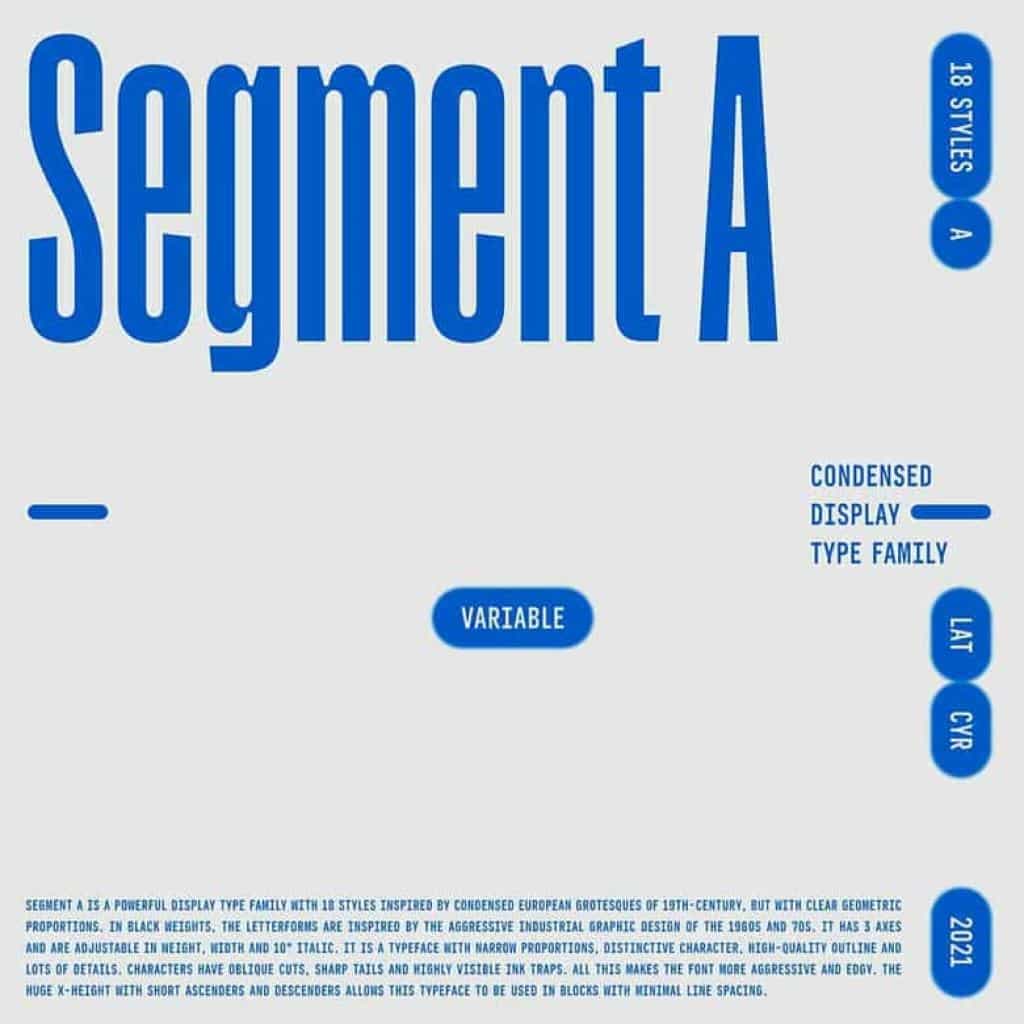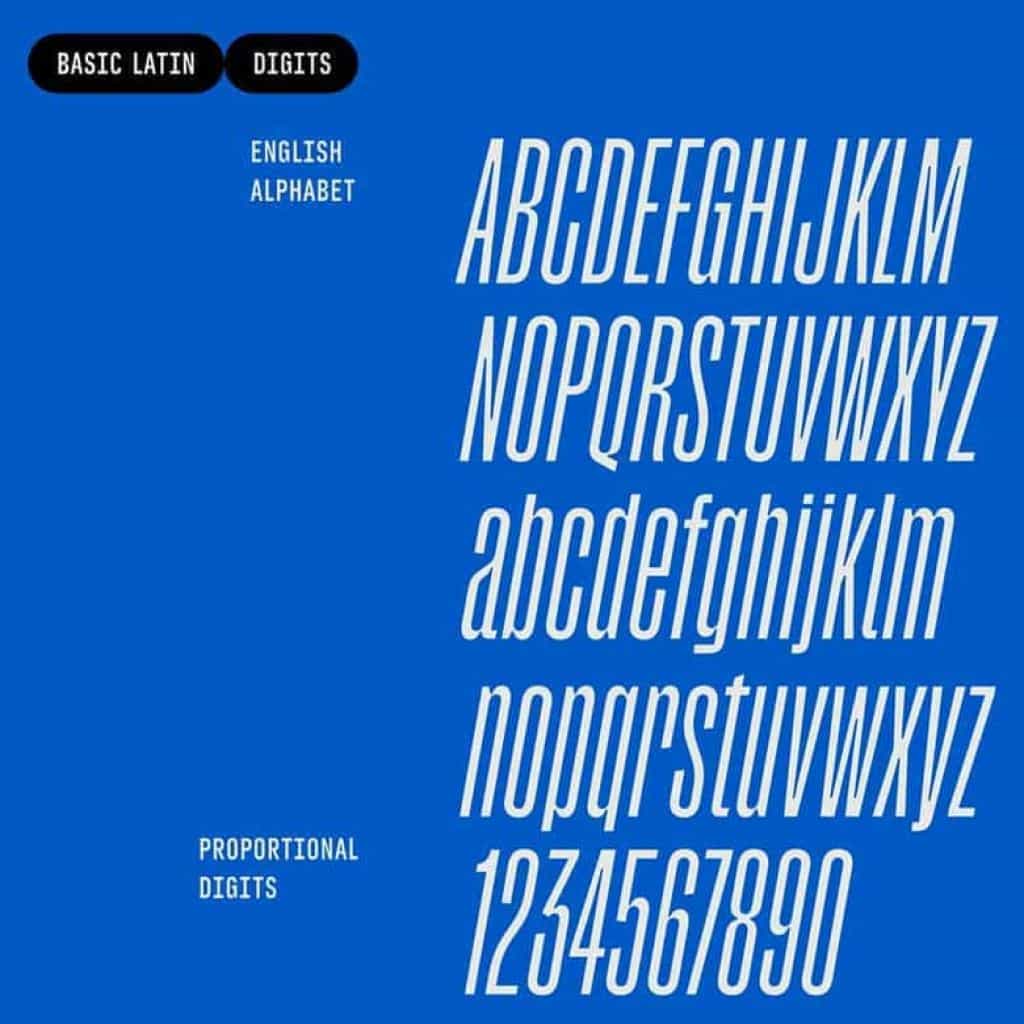
Segment A font is an imposing condensed display font featuring lowercase letters that extend all the way up to the height of its cap, inspired by graphic and aggressive styles popular during the 1960s and 70s. Both fonts can be adjusted in width, weight as well as 10@ Italic to suit various purposes – slim proportions with distinct styles that provide ample detail are hallmarks of its success.